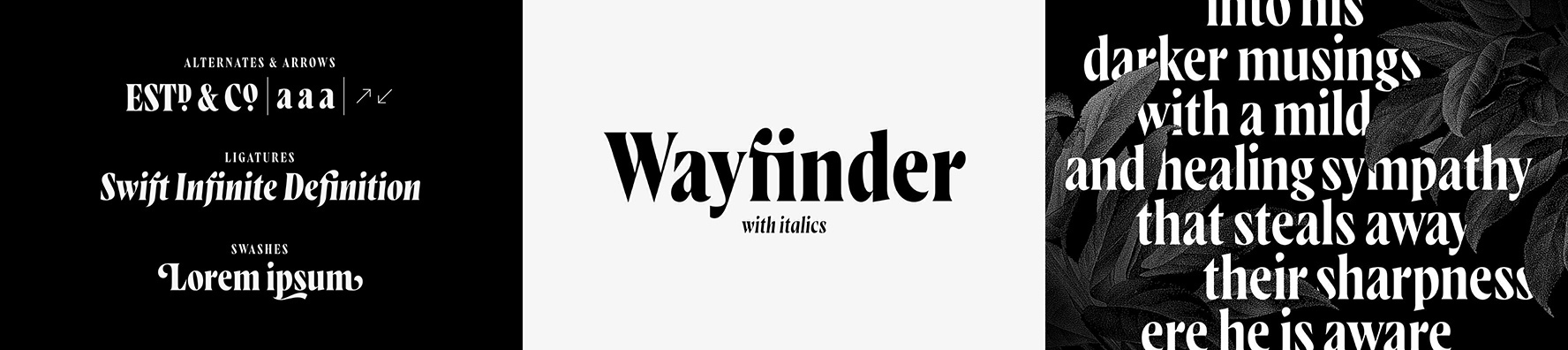
Wayfinder CF Font
Wayfinder CF Font is perfect for navigation systems, airport signage, subway maps, highway directionals, urban wayfinding projects, transportation hubs, public space signage, digital interfaces, information kiosks, and architectural environmental graphics.
What makes Wayfinder CF Font so exciting is its exceptional clarity and legibility engineered specifically for wayfinding applications where instant recognition and clear communication can literally guide people to their destinations safely and efficiently. This typeface represents the pinnacle of functional typography design, featuring optimized letterforms that maintain perfect readability under challenging conditions including poor lighting, moving vehicles, and varying viewing distances. The font's outstanding performance stems from its scientific approach to legibility, incorporating research-based design principles that ensure maximum comprehension speed and accuracy in critical navigation scenarios.
Wayfinder CF Font comes in multiple weights including Light, Regular, Medium, Bold, and Black variations, each carefully calibrated for different viewing distances and applications, along with condensed versions and specialized arrow sets designed specifically for directional signage systems.
Whether you're developing comprehensive wayfinding systems, designing transportation infrastructure, or creating public space navigation solutions, Wayfinder CF Font Free Download provides unparalleled functionality and professional reliability. This specialized typeface excels in demanding environments where clarity is paramount, from bustling airport terminals to complex urban intersections, maintaining its exceptional legibility while supporting multiple languages and international symbols. The font's scientifically optimized letterforms include enhanced character spacing and proportion adjustments that maximize recognition speed and reduce navigation errors.
Transportation authorities and wayfinding specialists consistently select Wayfinder CF Font for projects requiring maximum legibility and navigation efficiency. Its performance-driven design makes it particularly valuable for airports, transit systems, hospitals, and large-scale public facilities where clear communication directly impacts user experience and safety. The font's proven effectiveness and comprehensive character set enable seamless implementation across complex wayfinding systems while maintaining consistent visual hierarchy and supporting multilingual navigation requirements essential for modern international facilities.